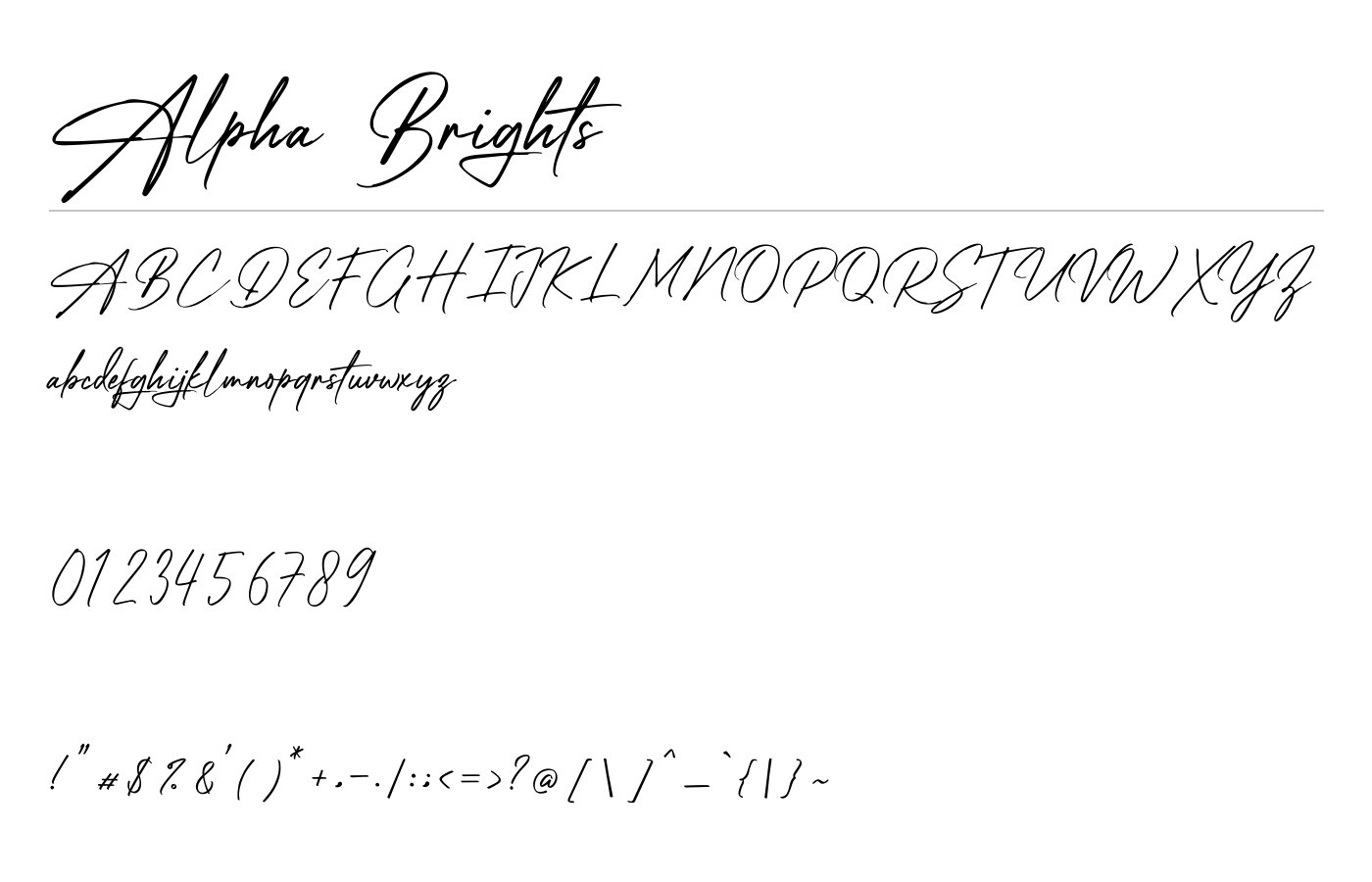
Alpha Brights is an elegant, thin script font with a handwritten feel, featuring fluid, flowing strokes and a slightly casual yet refined style. Its tall, narrow letterforms and delicate lines make it perfect for sophisticated branding, invitations, and stylish editorial designs that want to convey personal charm and grace. This font works beautifully in contexts where a light, airy, and elegant touch is desired, especially in luxury or fashion projects.
Alpha Brights Font
About Alpha Brights Font
| Font family | Alpha Brights Font |
| Designer | Typeline Studio 2020 |